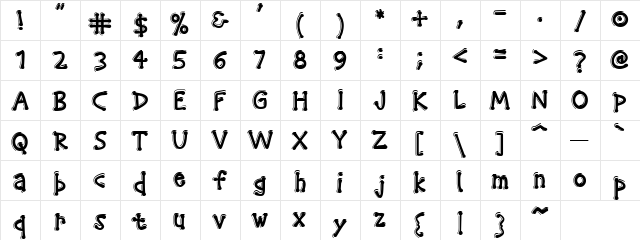
Scrap Shadow Regular
Design Context for Scrap Shadow Typeface
Scrap Shadow is built around its visual character rather than neutral utility — its distinctive forms are designed to make an impression at display sizes.
Font Pairing: Pair with a clean neutral sans-serif for body copy to let Scrap Shadow's character lead without overwhelming the composition.
Pro Tip: Treat Scrap Shadow as the centrepiece of your typographic hierarchy. One strong heading set in a decorative face can carry an entire layout.